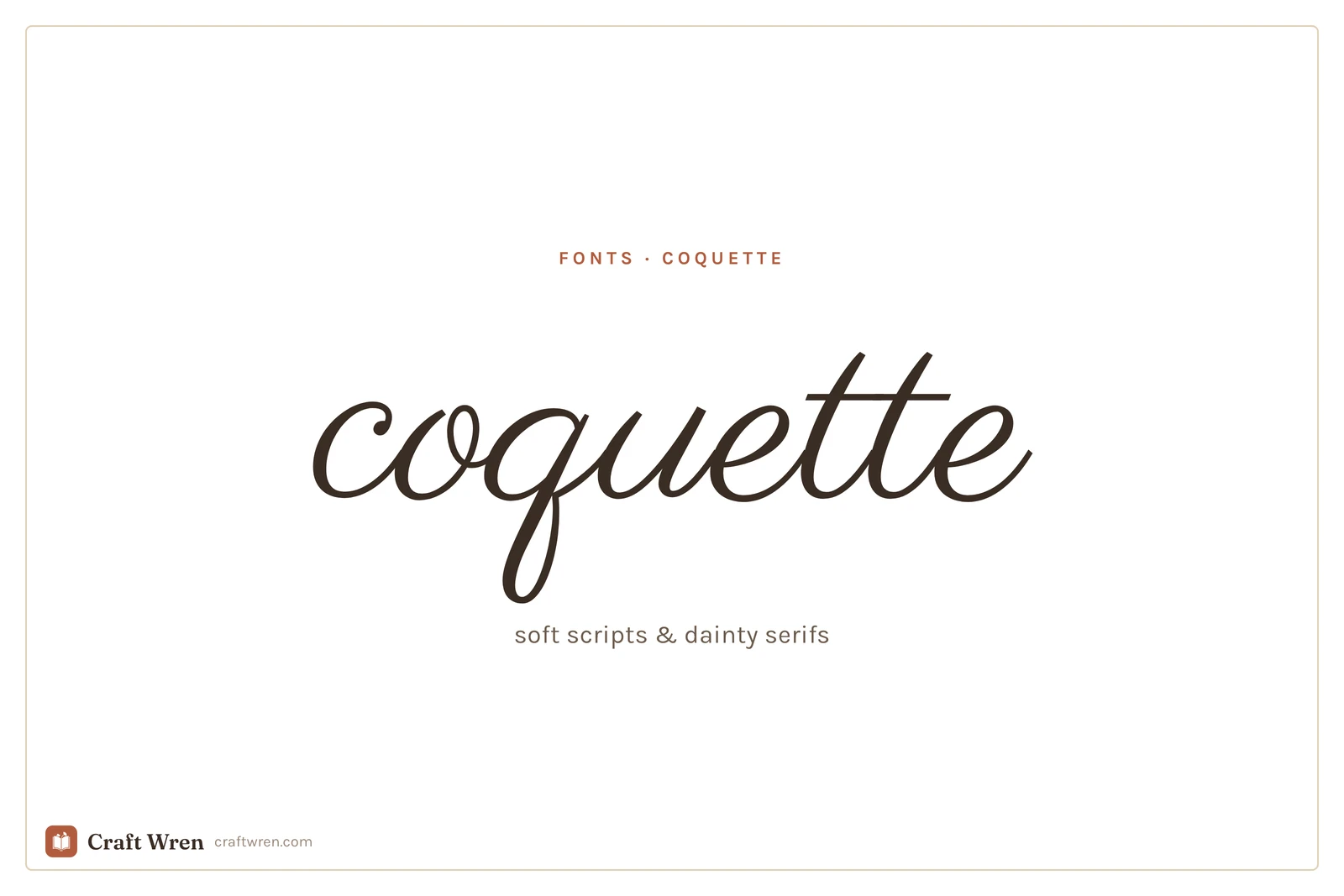
Coquette Fonts: Soft, Delicate Scripts and Serifs With a Ribbon Energy
You are going for soft. A little bow in the corner, the pink that reads expensive instead of plastic, the whole quiet-luxury-but-make-it-girlish thing. Then you type the words and they come out blocky and confident, and your delicate little thing suddenly looks like a flyer for a gym. The bow cannot save it. The font is the bow.
Coquette lives almost entirely in the lettering. The aesthetic is about restraint, fine lines, and a kind of practiced prettiness, and a heavy font breaks all three at once. So the right typeface is doing more work here than in any other aesthetic.
Coquette fonts are delicate, romantic typefaces, mostly fine-lined scripts and dainty serifs, that read soft and feminine. They suit affirmations, wedding details, and anything that wants to feel tender rather than loud.
There are really two families that pull it off, plus one mistake that ruins both.
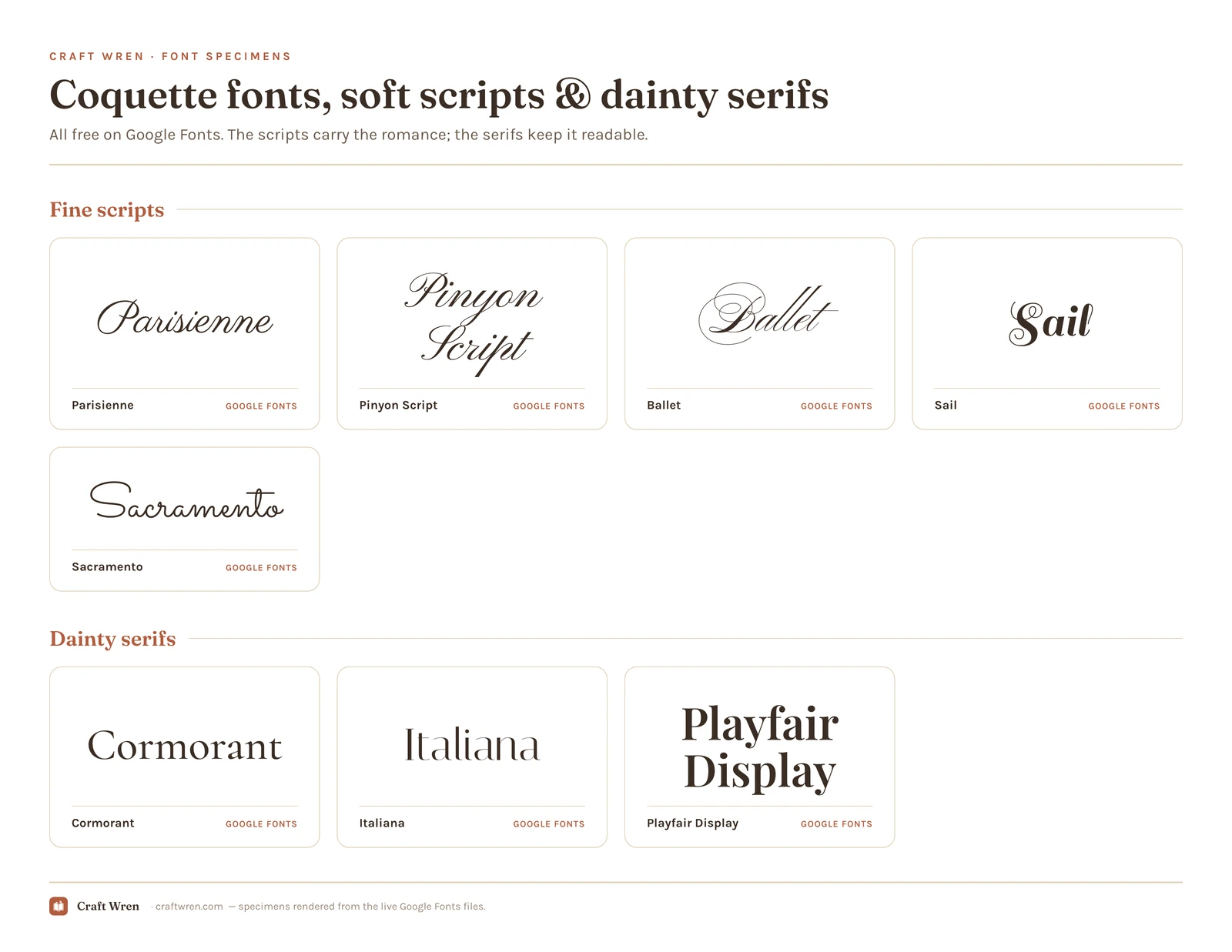
The eight coquette fonts side by side
Smallest print size is measured from each font file: the letter height at which the thinnest part of the stroke drops to 0.25 mm, which is roughly where home printing starts losing the line. Screens forgive more, vinyl forgives less.
| Font | Sub-style | What it gives you | Smallest print size |
|---|---|---|---|
| Sacramento | Fine scripts | Simplest monoline, stays readable | 5.4 mm |
| Parisienne | Fine scripts | Fine-lined and flowing, the easier of the two | 8.5 mm |
| Playfair Display | Dainty serifs | Refined serif, dramatic heading | 8.5 mm |
| Cormorant | Dainty serifs | High-contrast serif, fashion magazine feel | 10.0 mm |
| Sail | Fine scripts | Decorative, old-fashioned, dramatic | 12.0 mm |
| Pinyon Script | Fine scripts | Same flow, needs nearly twice the height | 14.9 mm |
| Ballet | Fine scripts | Featherweight script, almost whispers | 20.0 mm |
| Italiana | Dainty serifs | Refined serif with structure | 20.0 mm |
The fine scripts
This is the heart of coquette: thin, loopy, handwritten letters that look like they were dashed off with a very expensive pen. They carry the romance, and they are the first thing the eye reads as “soft.”
Parisienne and Pinyon Script, free on Google Fonts, are the easiest place to start, both fine-lined and flowing without being illegible. Ballet is the daintiest of the bunch, a featherweight connecting script that almost whispers. Sail leans more decorative and old-fashioned if you want a little drama, and Sacramento is the simplest of the set, a single-weight monoline that stays readable when the loopier ones get fussy. All install straight into Canva, no download.
The dainty serifs
When you need the words to actually be readable, a delicate serif does coquette without the squint. These are the fonts for the longer line, the journaling, the part a script would turn into a pretty blur.
Cormorant is the standout, a high-contrast serif with thin, elegant strokes that feels like a fashion magazine. Italiana gives you a similar refined look with a little more structure, and Playfair Display brings more drama to a heading without losing the refinement. Set your title in a script and your body in one of these, and the page reads soft and legible at the same time.
What coquette fonts are best for
Coquette is a specific mood, so it shines on some projects and quietly fails at others. The fine scripts are made for the things that should feel like a love letter: a name on a wedding place card, a two-word affirmation, the cover of a keepsake journal. The dainty serifs carry the calmer, longer pieces, a soft-girl planner, a quote you actually want to read, a recipe card that should feel like it came from a Paris kitchen.
Where coquette struggles is anything that needs to shout. A sale banner, a bold logo, a sign read across a room, all of these want a weight the aesthetic refuses to give. If your project needs to grab attention rather than reward a closer look, a bolder display font will serve you better. Coquette is built for the lean-in, not the glance.
A wedding suite is about as lean-in as projects get. If you are planning one in this style, save-the-dates through envelopes, our wedding fonts roundup has the scripts, the serifs, and a few duos that come already matched, so you are not pairing fonts at midnight.
The legibility trap
Coquette fonts have one real flaw: the prettier the script, the harder it is to read, and it is easy to fall for a font you cannot actually use.
A few rules keep you out of trouble. Use the fine scripts only on short phrases, a name, a date, a two-word affirmation, never a paragraph. Size them up generously, because thin strokes vanish when small. And if a word has to be read at a glance, like the time on an invitation, put it in the serif, not the script. A gorgeous font that leaves your guest squinting at the start time has failed at the one job an invitation has.
Is there a coquette font I can copy and paste?
Sort of, but it is not really a font. The copy-and-paste coquette generators swap your letters for look-alike Unicode symbols, which is why they work in an Instagram bio without installing anything. For a bio, fine. Screen readers tend to read those symbols out as gibberish and some apps show them as empty boxes, so for a printable or anything in Canva, install one of the real fonts above.